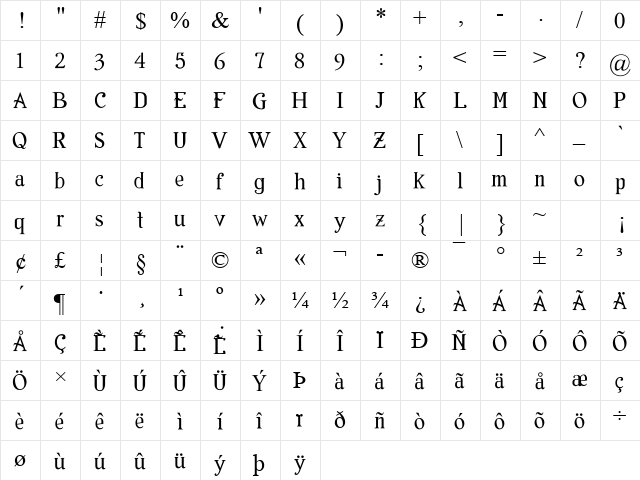
Amaz?a Regular Font Preview
Amaz?a Regular
Amaz?a Regular Font Details
| Foundry | Monotype Typography |
| Designer | Monotype Type Drawing Office - Stanley Morison, Victor Lardent 1932 |
Design Context for Amaz󮩣?a Typeface
Amaz󮩣?a offers clean, dependable letterforms without strong stylistic allegiance, making it a practical choice for designers who need flexibility.